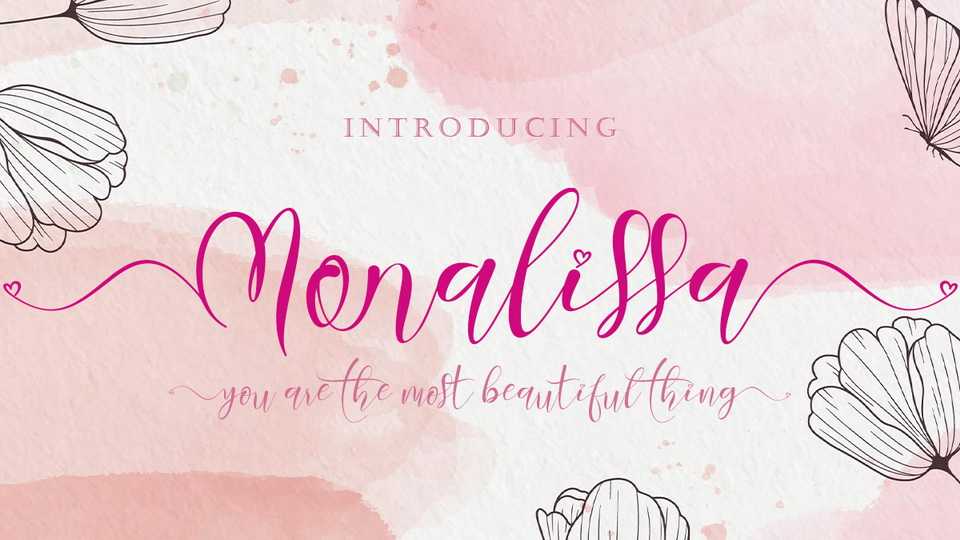
Download Monalissa font, a very beautiful hand painted typeface that is made with great love. Monalissa can make your work more romantic and elegant.